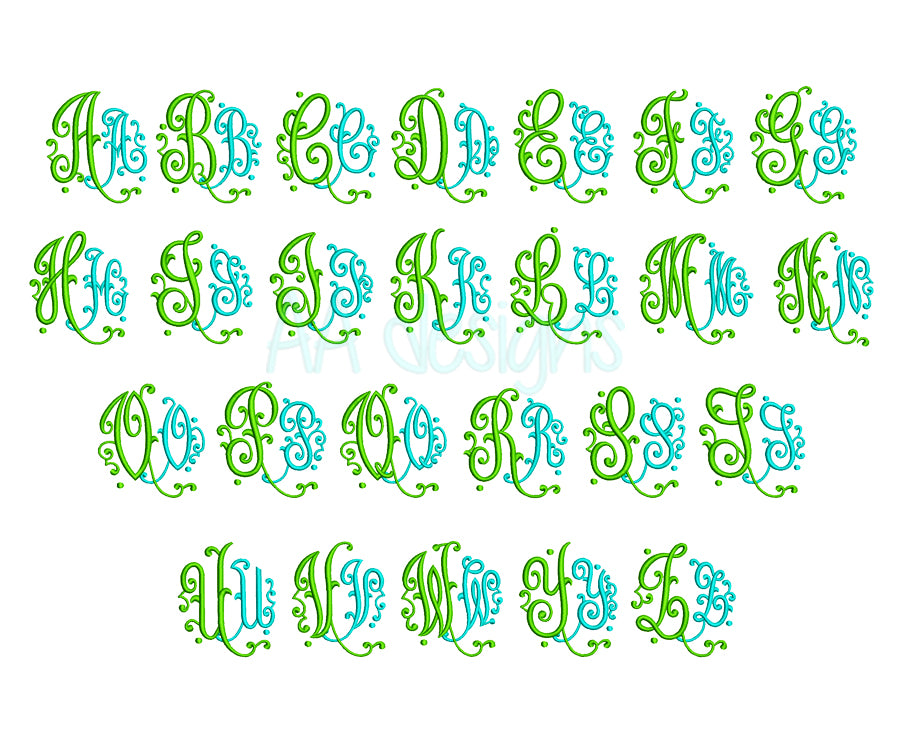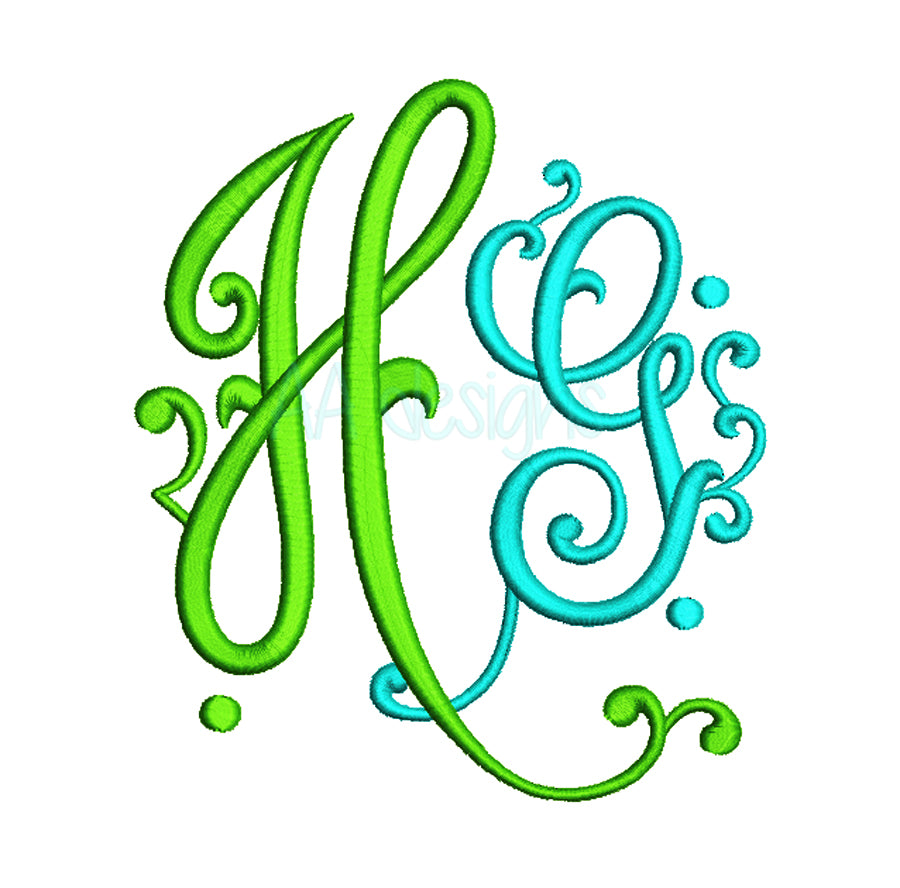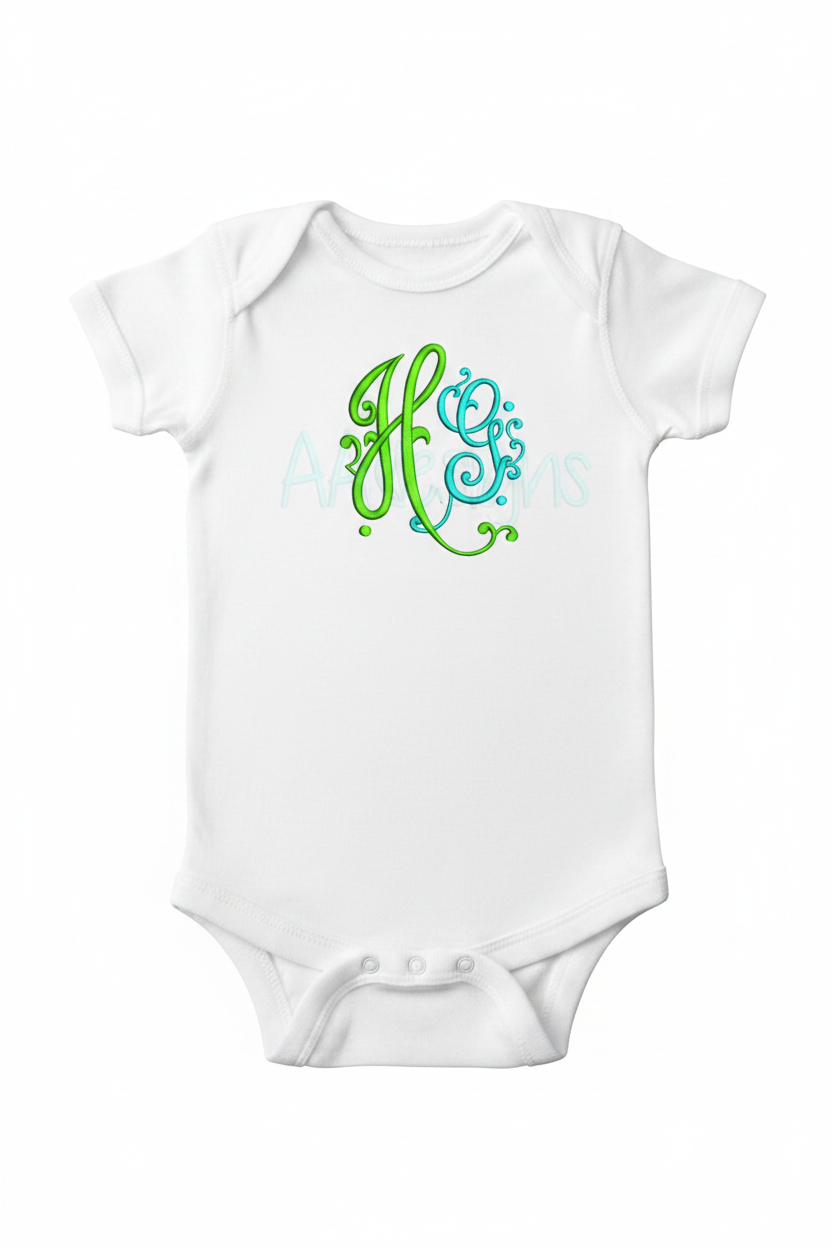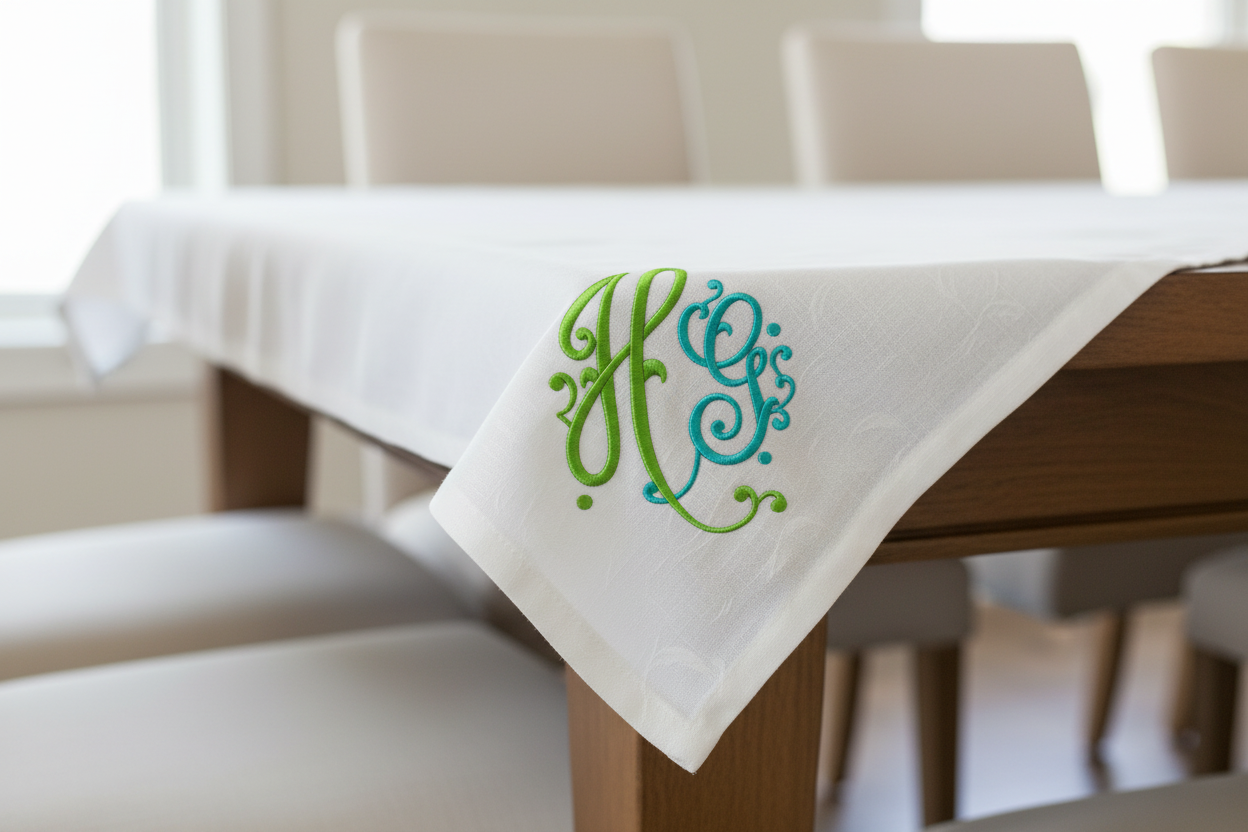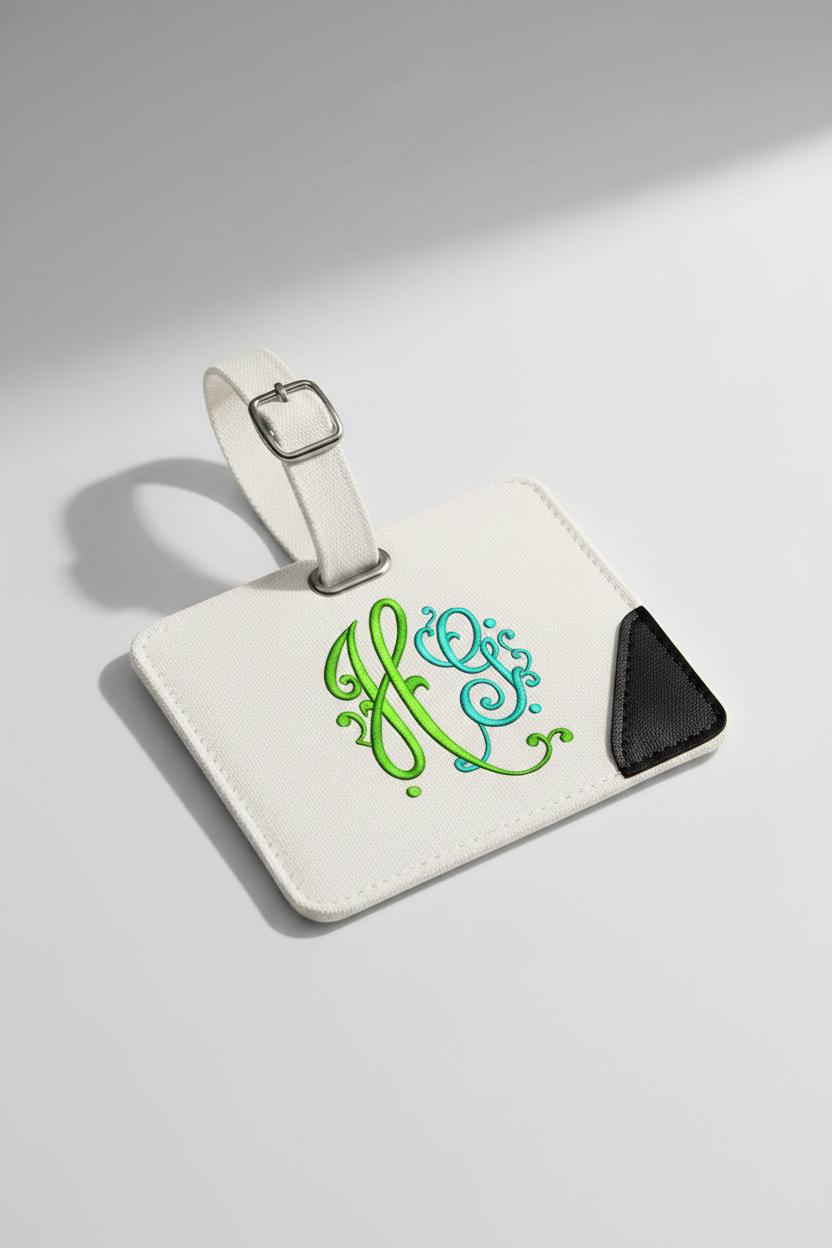
Vines Script Embroidery Font – Machine Embroidery in Script Font
Vines Script Embroidery Font
Bring flowing elegance to your embroidery projects with the Vines Script Embroidery Font — a beautiful cursive font with delicate vine-inspired details, perfect for monograms, apparel, home décor, and personalized gifts.
Font Details
- Includes A–Z uppercase and a–z lowercase